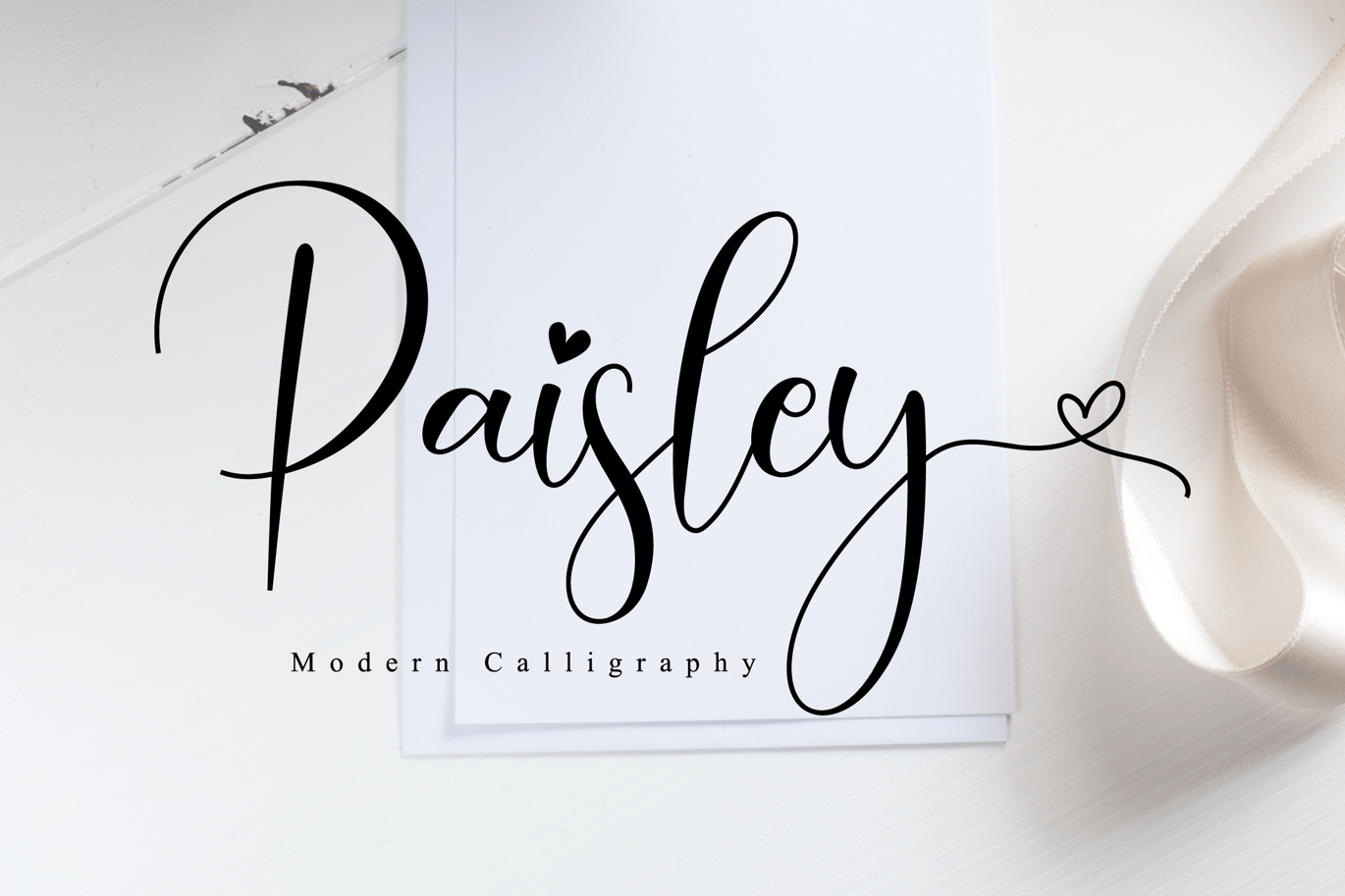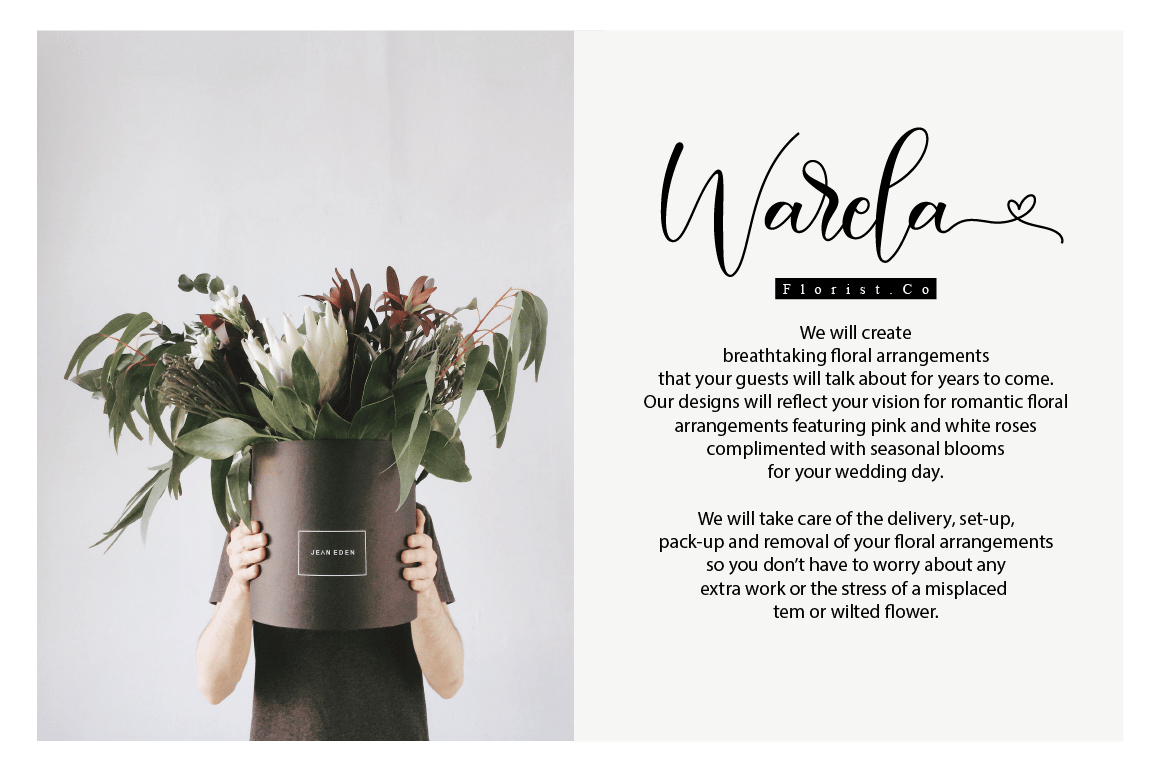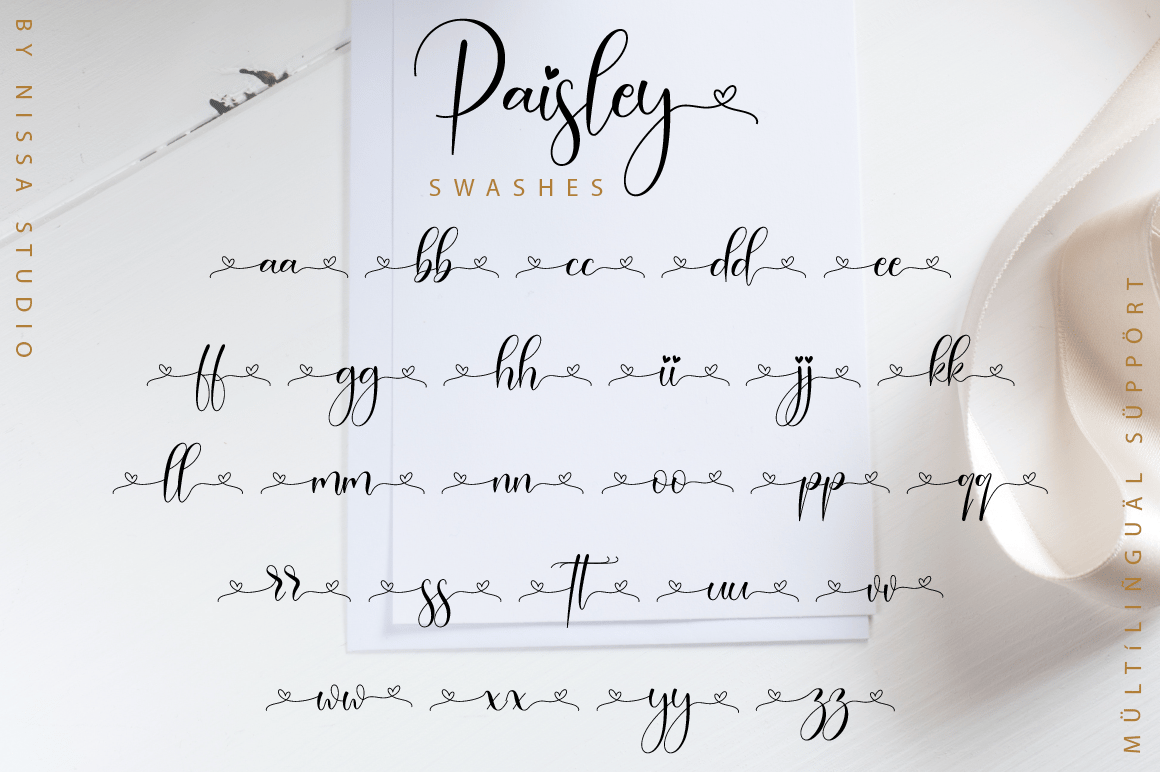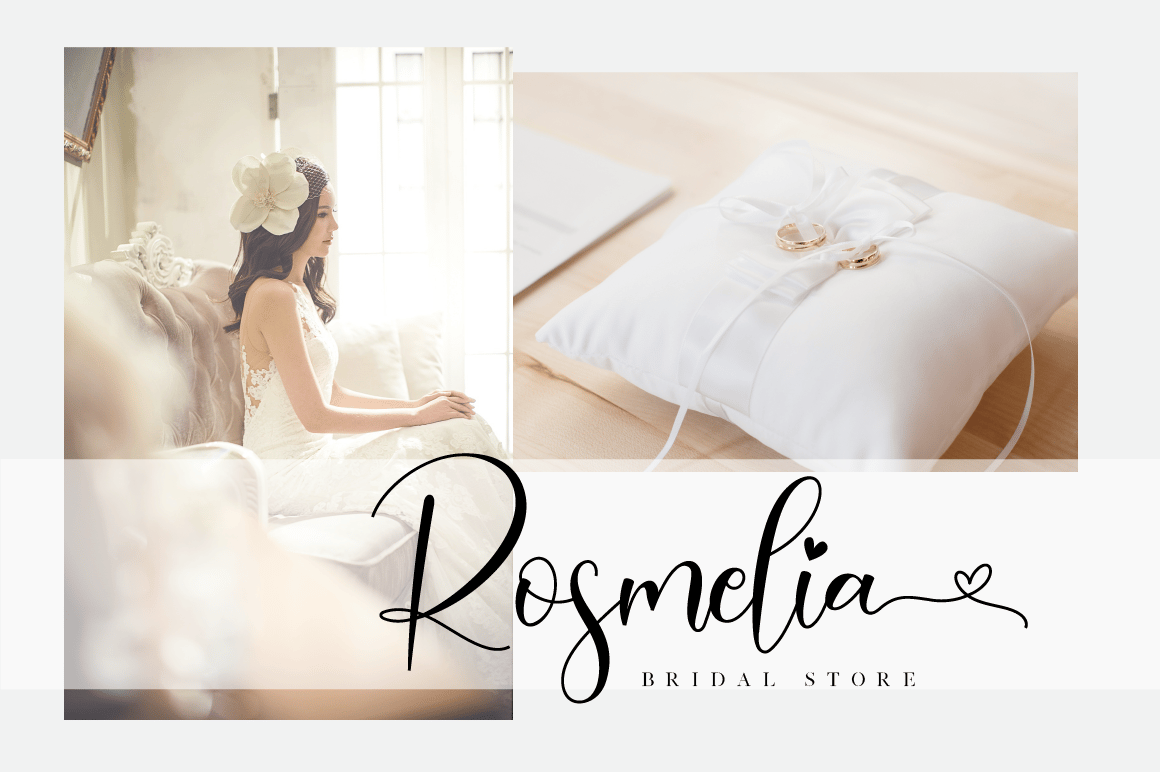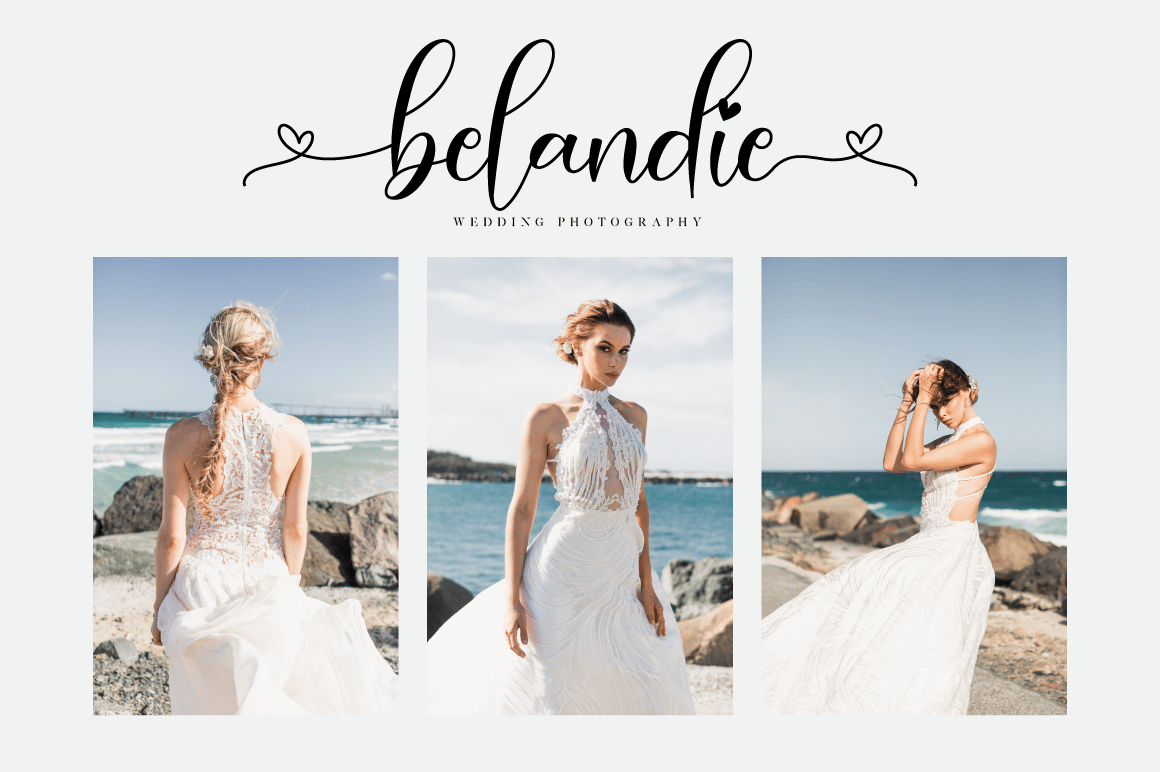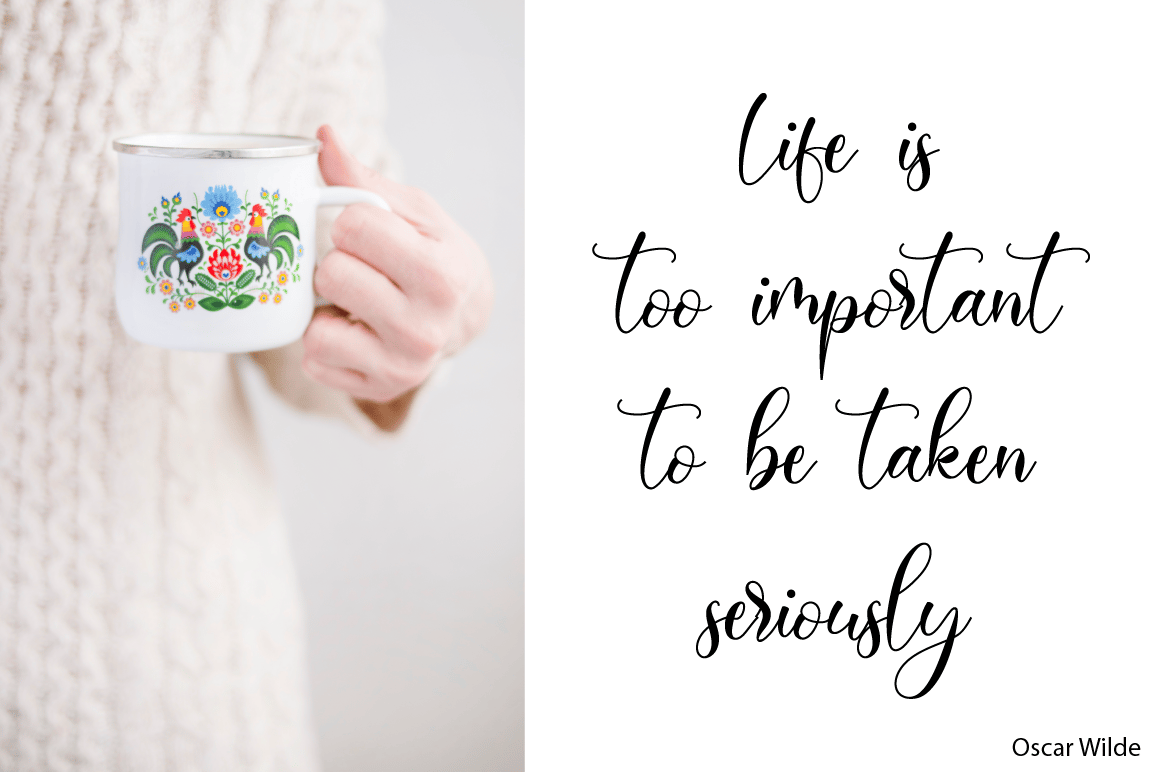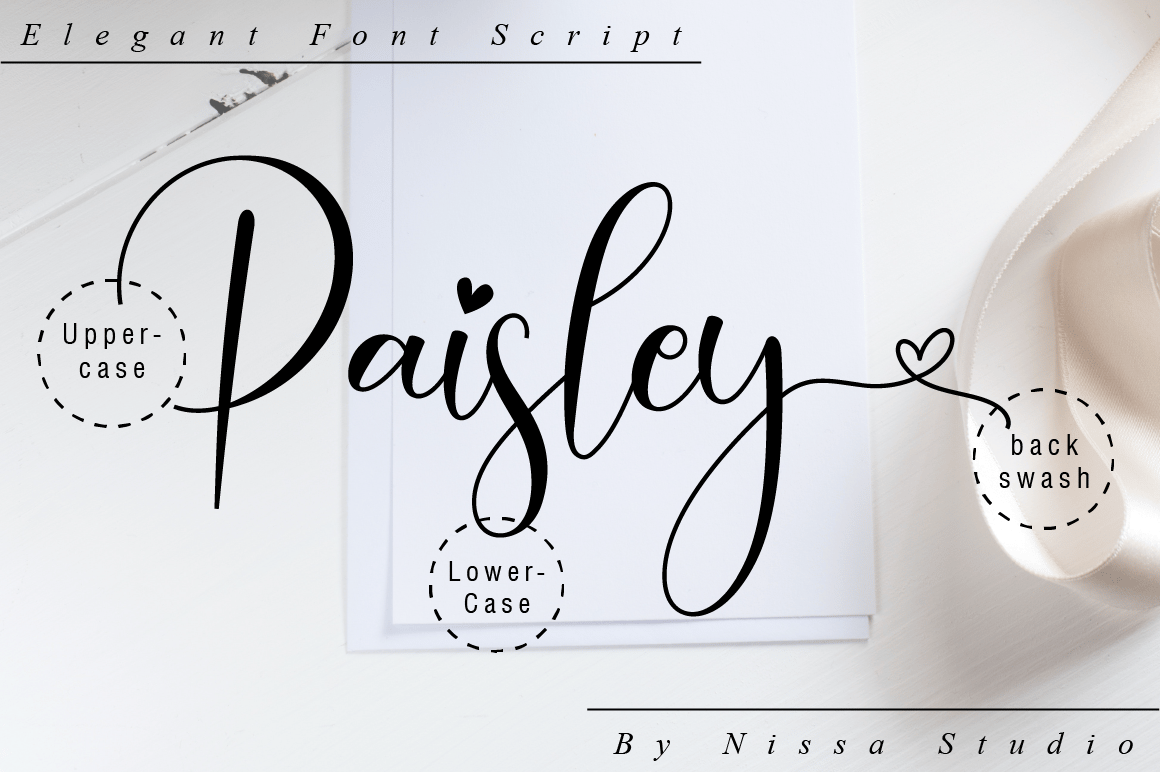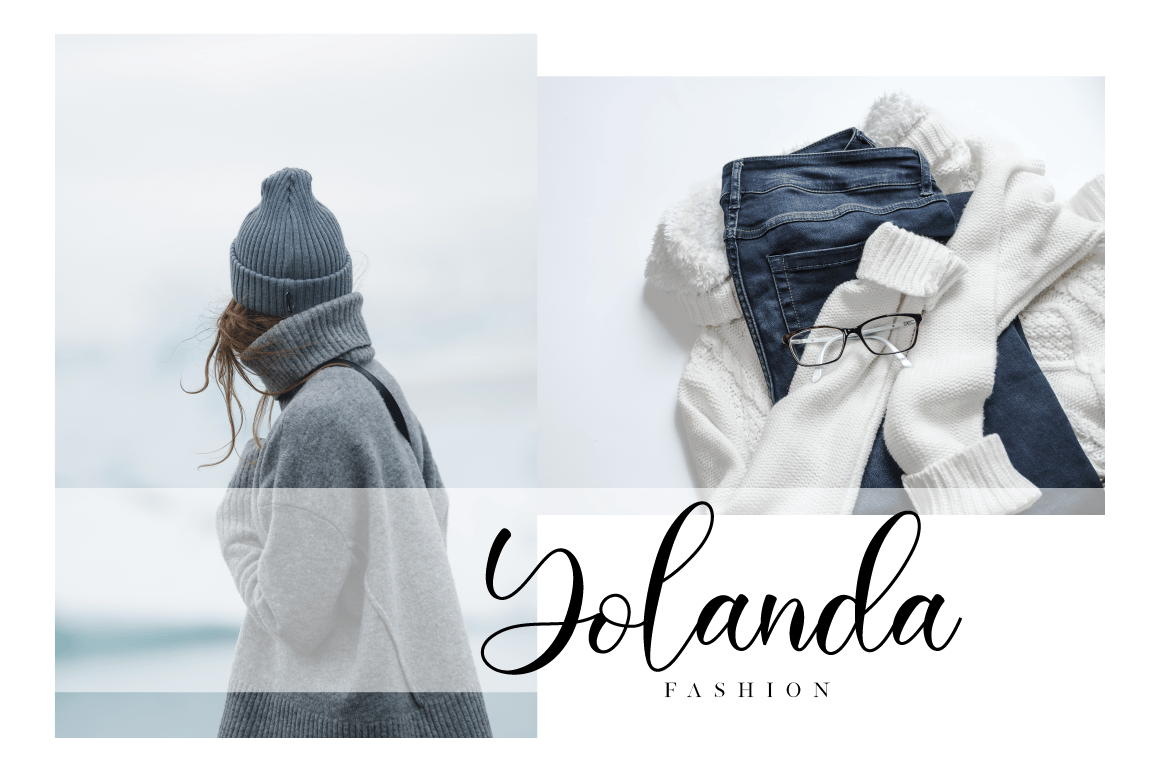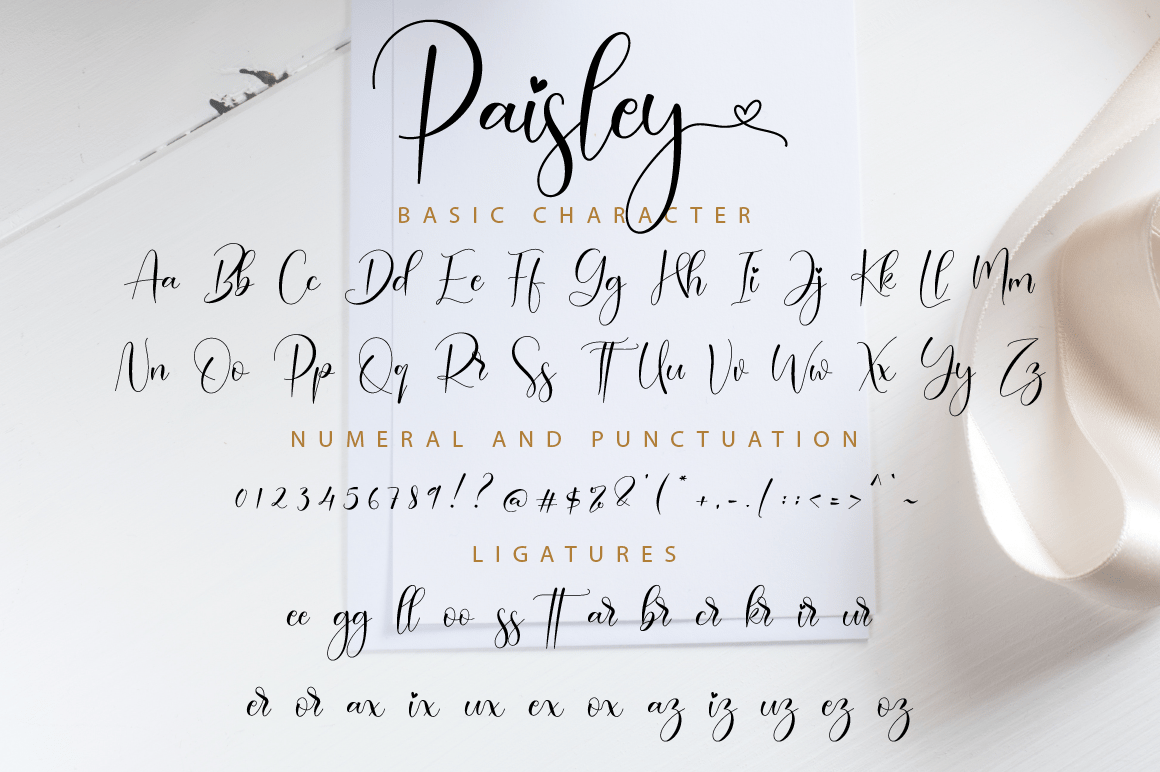
Paisley – Wedding Font
Paisley is a beautiful script font that has a classy, elegant, and modern look.
- Modern Calligraphy Font
- Beautiful Swash (Ending tail)
- Beautiful Titling (Beginning tail)
- Special Ligatures